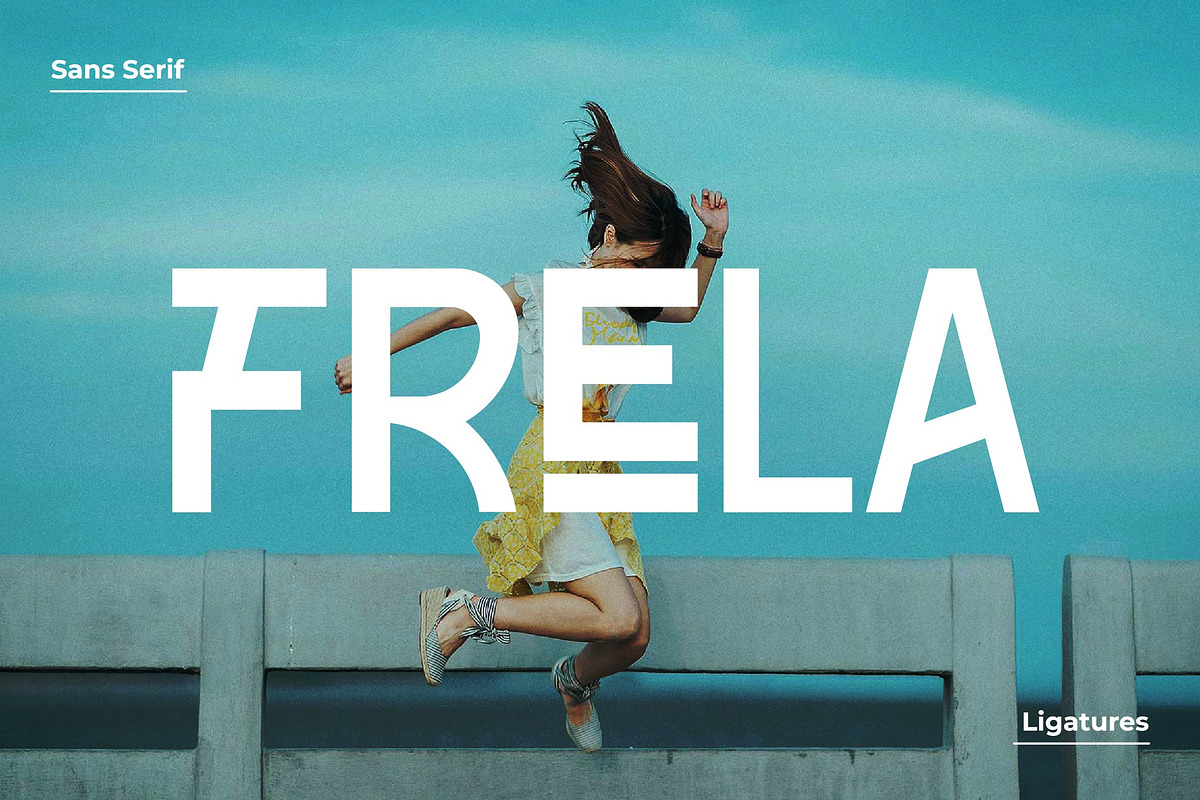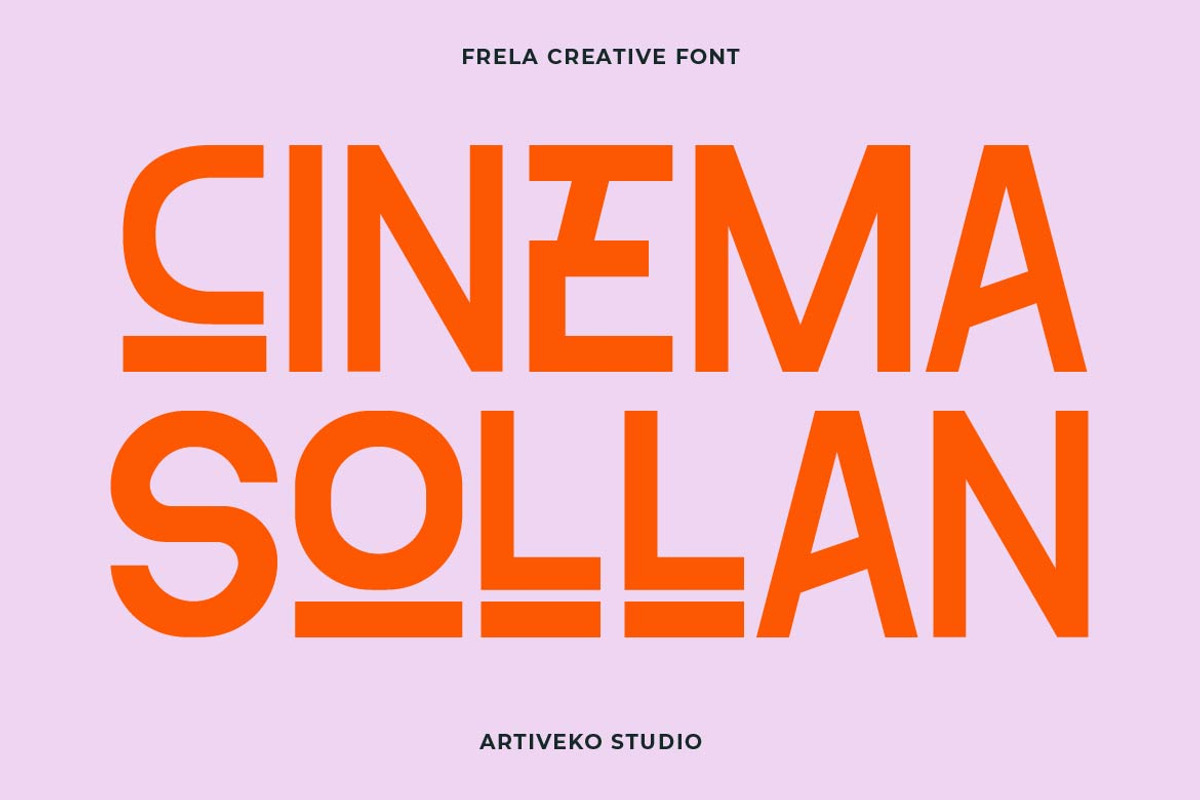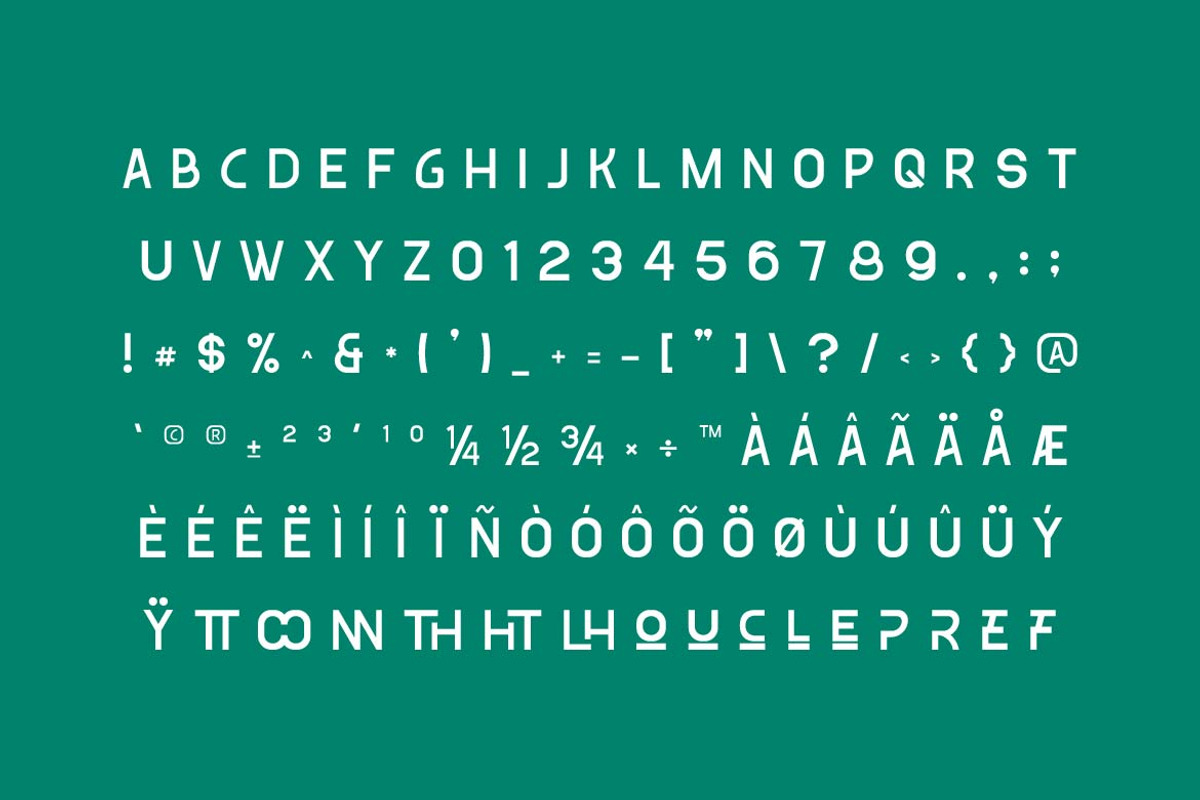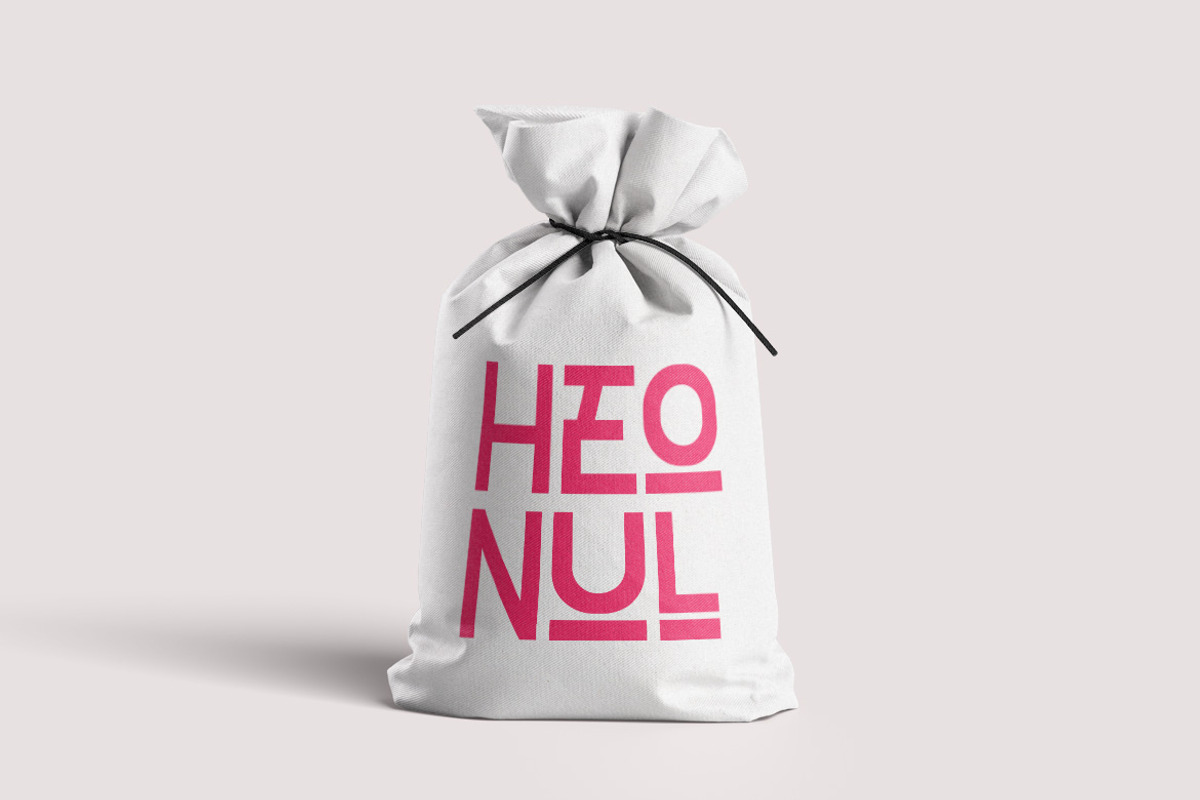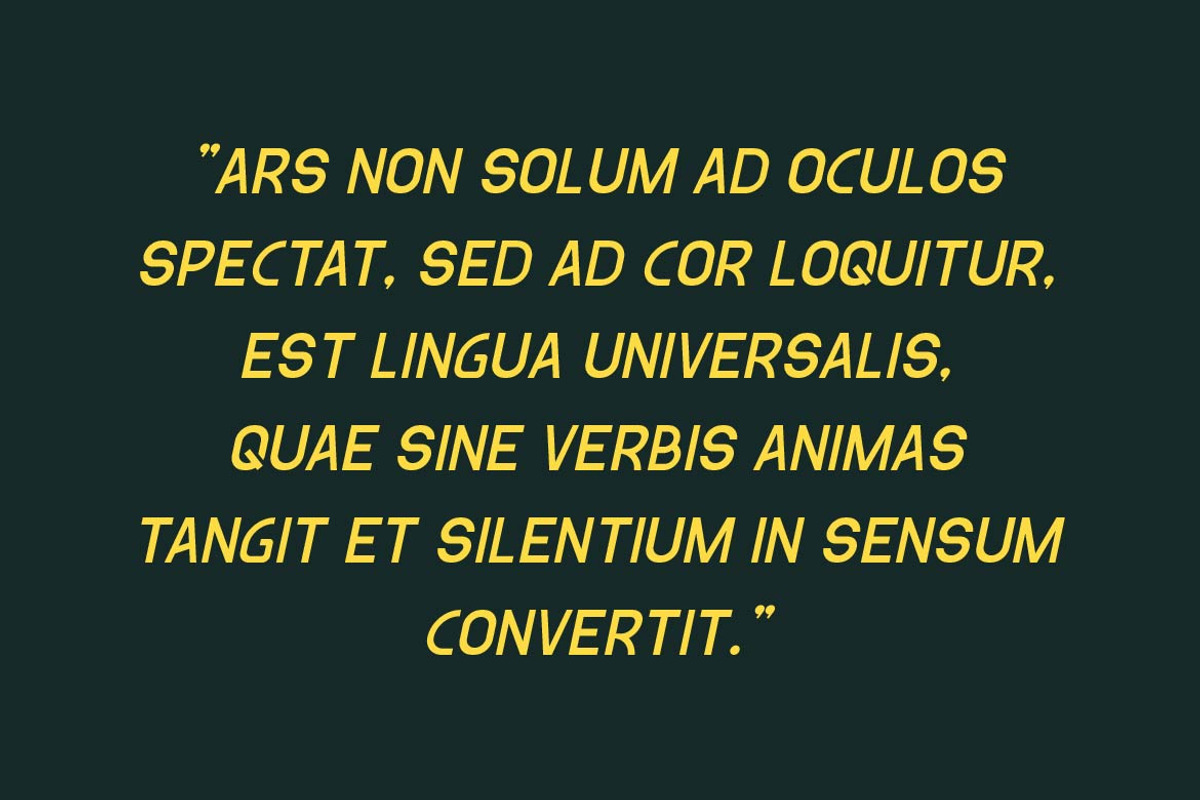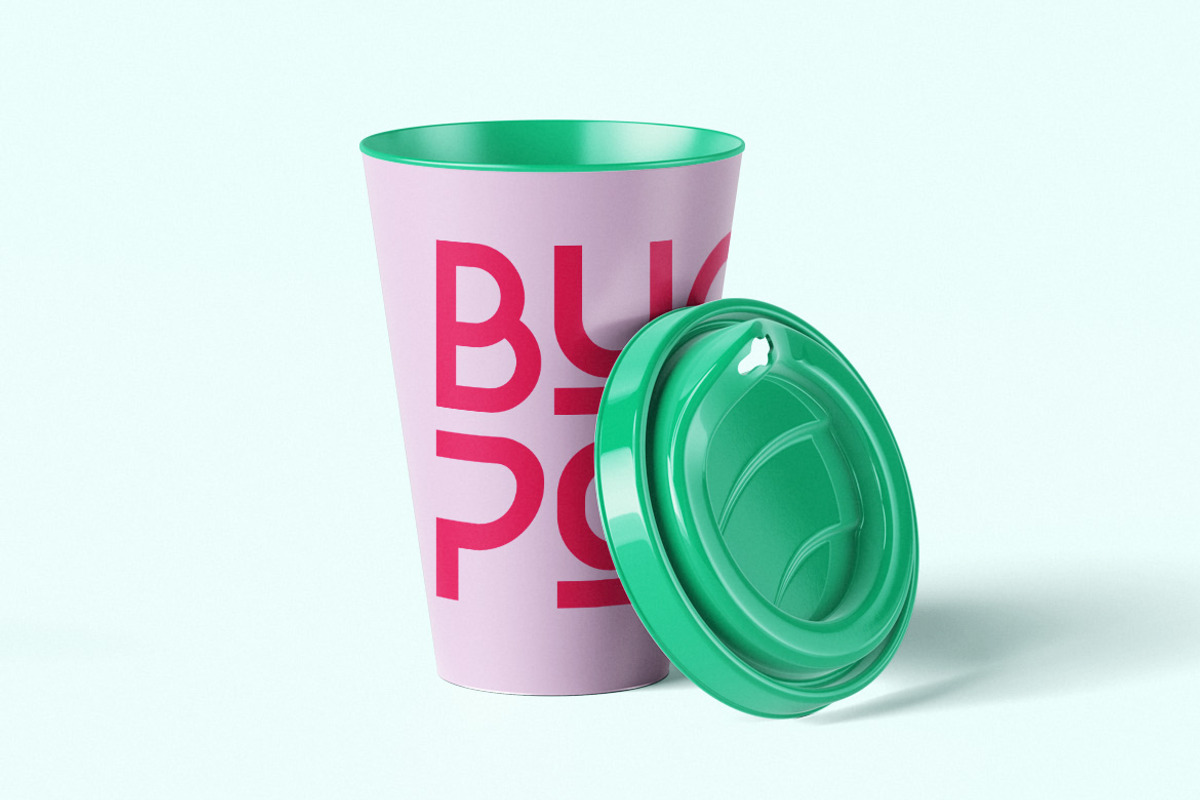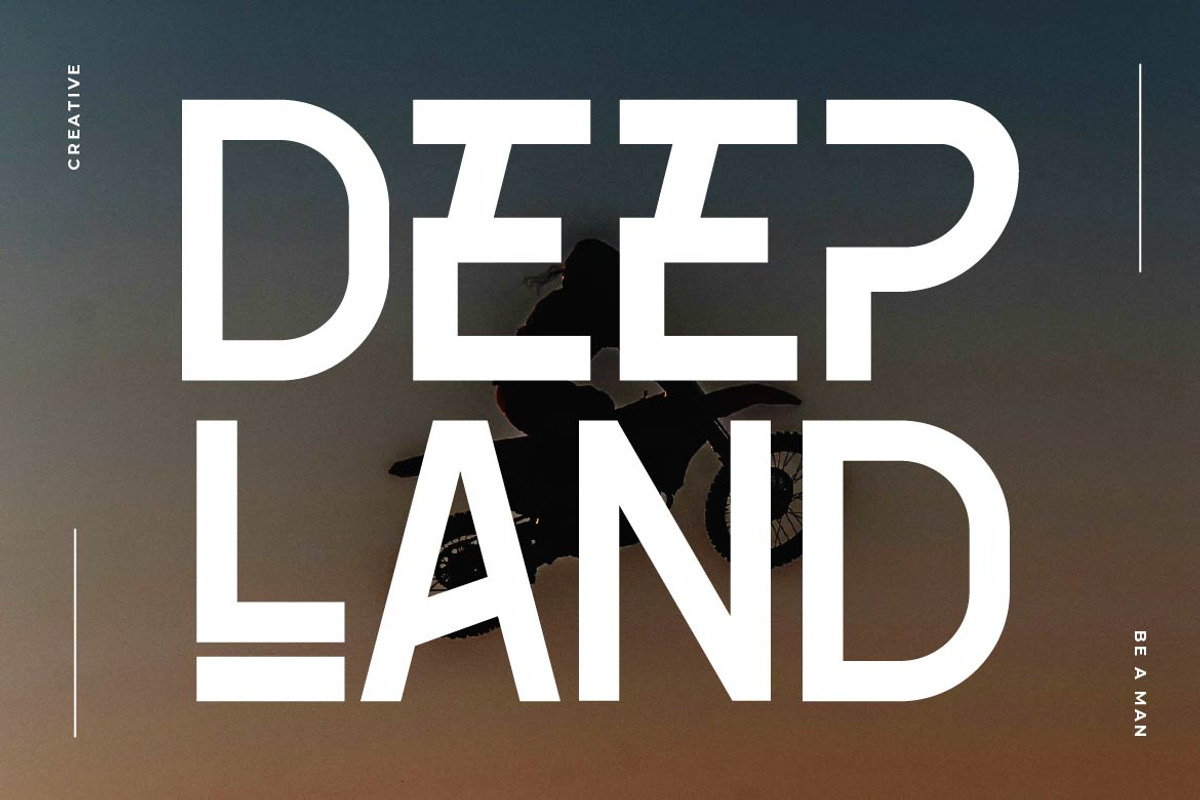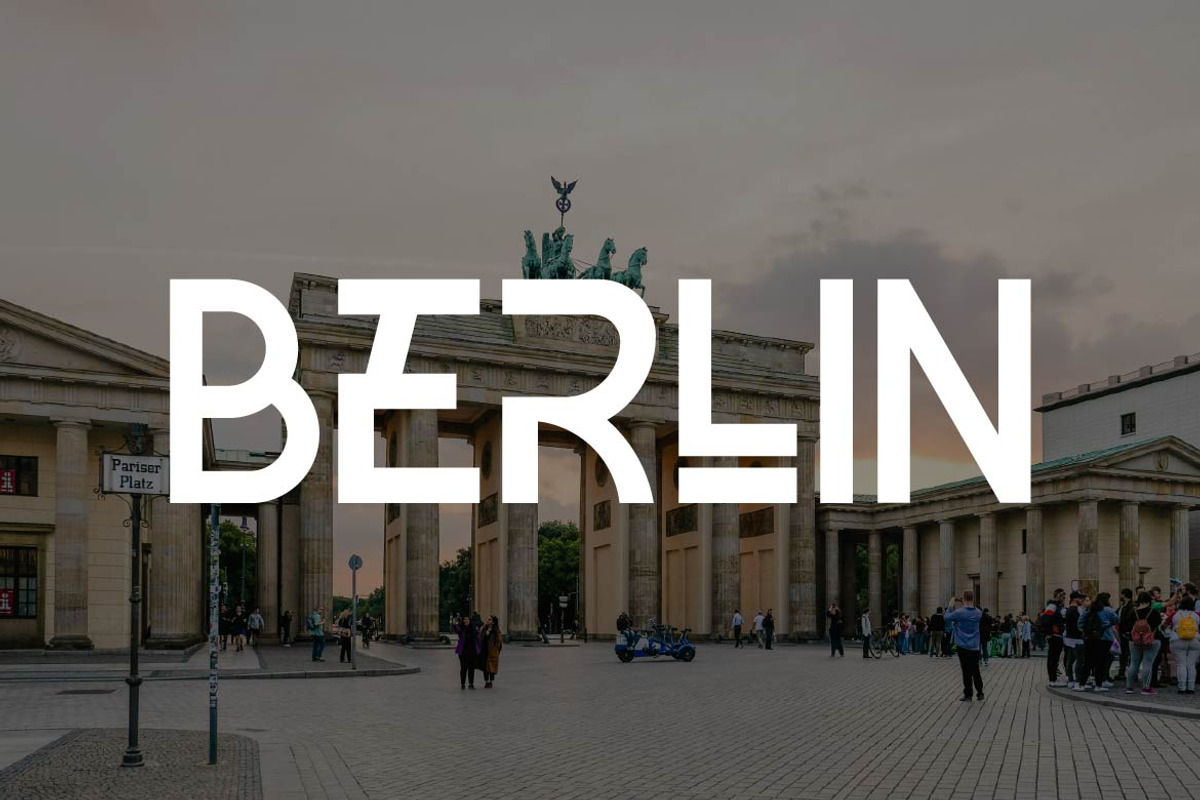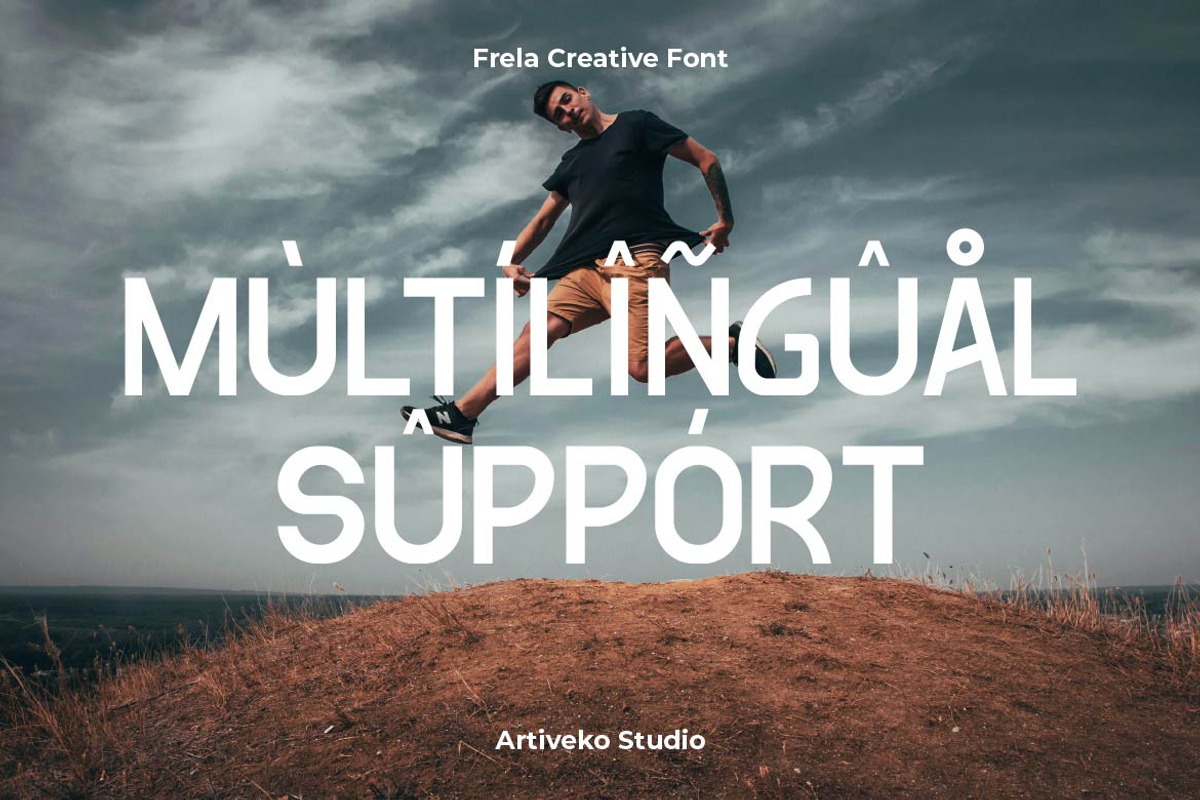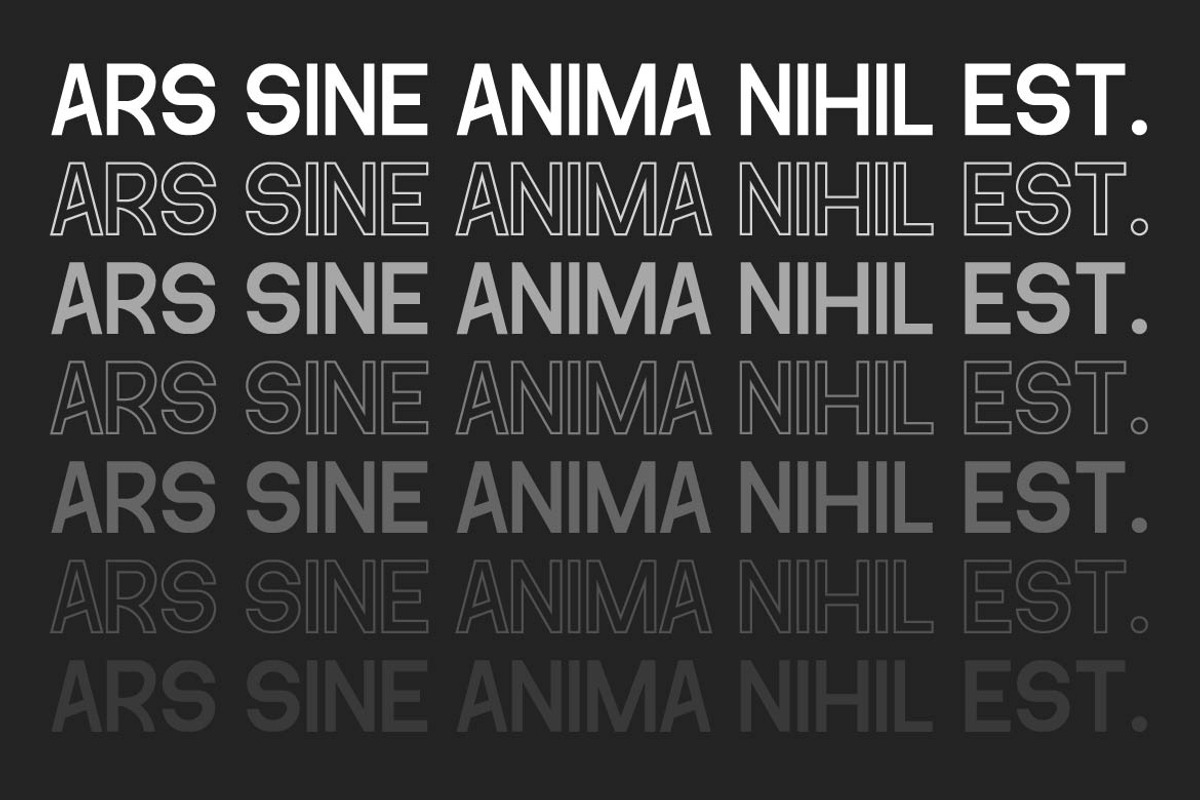
Frela Creative Sans Serif
Frela is a creative sans serif font that breaks the mold of traditional minimalism. With playful curves, unexpected angles, and a lively rhythm, Frela adds a spark of originality to every design. It’s clean and modern at its core, yet full of character — making it perfect for branding, editorial design, posters, packaging, and bold visual identities that crave a unique twist.